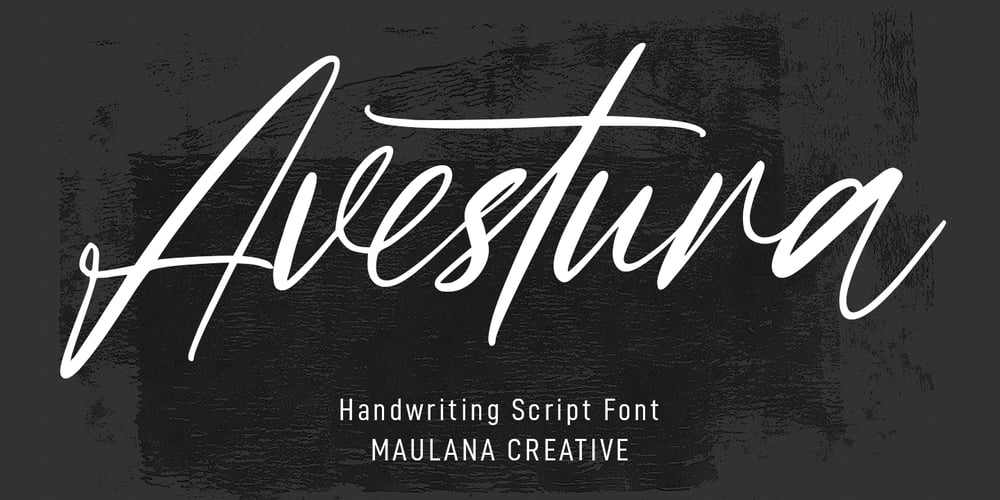
Avestura Font Family was designed by Gilang Maulana and published by Maulana Creative. Avestura contains 1 styles and family package options. Avestura is a modern signature script font. With slanted high contrast stroke, fun character with a bit of ligatures and alternates. To give you an extra creative work. Avestura font support multilingual more than 100+ language. This font is good for logo design, Social media, Movie Titles, Books Titles, a short text even a long text letter and good for your secondary text font with sans or serif. Make a stunning work with Avestura font. Cheers, Maulana Creative